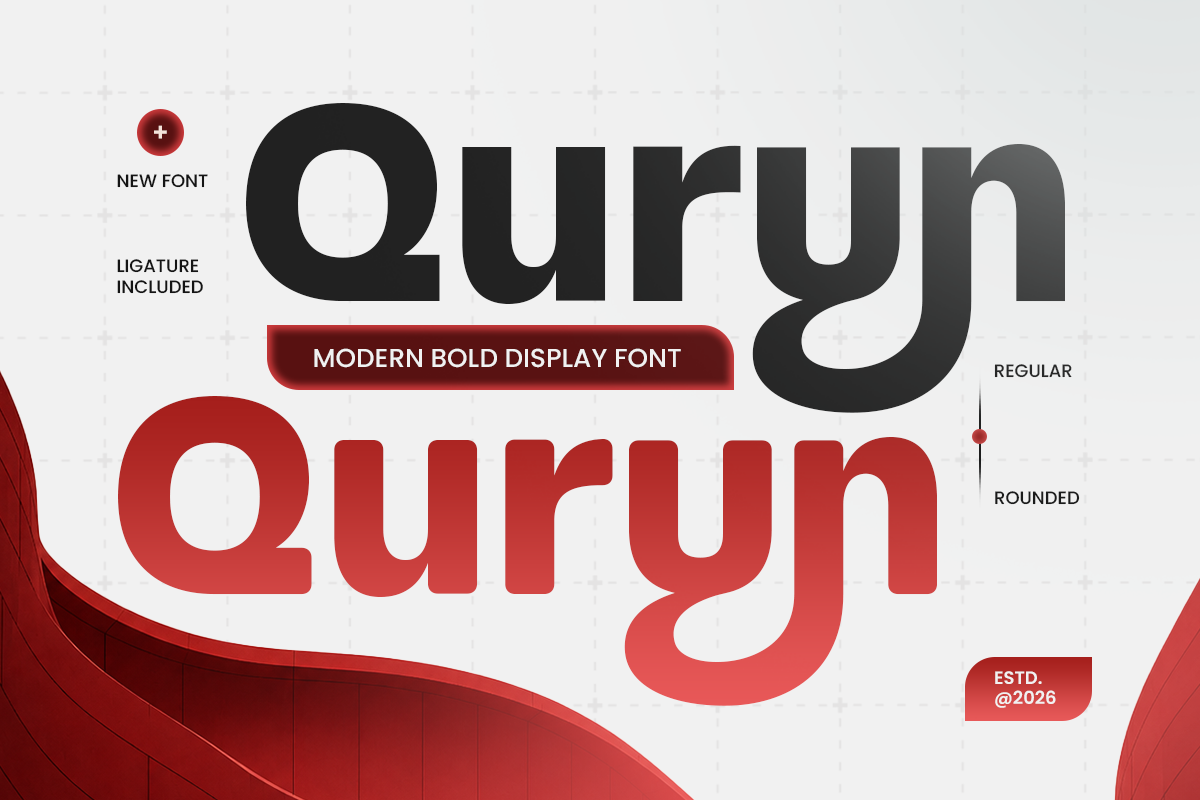
Quryn
-Modern Bold Display Font
Quryn – Modern Bold Display Font
Quryn is a modern bold display font designed with strong visual impact and a confident personality. Featuring bold letterforms and a contemporary display style, Quryn brings a powerful presence to designs that need attention, clarity, and memorable typography.
Perfect for modern branding, logo design, posters, headlines, packaging, advertising, social media graphics, and creative campaigns, Quryn helps create bold visual statements. Its distinctive shapes and strong structure make it suitable for brands looking to express energy, confidence, and a modern edge.
As a bold display font, Quryn works beautifully across various industries including fashion, lifestyle, sports, entertainment, and digital branding. From eye-catching titles to impactful brand identities, Quryn provides designers with a versatile typeface for both print and digital projects.
Quryn – Modern Bold Display Features
• Bold display letterforms with a strong modern personality
• Powerful typography style for impactful visual communication
• Ideal for logos, branding, posters, and headlines
• Perfect for packaging, advertising, and social media designs
• Includes uppercase, lowercase, numerals, and punctuation
• OpenType features for creative typographic flexibility
• Great for digital interfaces and professional print projects
• Versatile design for modern creative industries
Multilingual Support
Afrikaans, Albanian, Asu, Basque, Bemba, Bena, Breton, Chiga, Cornish, Dutch, English, Estonian, Filipino, Finnish, Friulian, Galician, German, Gusii, Indonesian, Irish, Italian, Kabuverdianu, Kalenjin, Kinyarwanda, Luo, Luxembourgish, Luyia, Machame, Makhuwa-Meetto, Makonde, Malagasy, Manx, Morisyen, North Ndebele, Nyankole, Oromo, Portuguese, Quechua, Romansh, Rombo, Rundi, Rwa, Samburu, Sango, Sangu, Scottish Gaelic, Sena, Shambala, Shona, Soga, Somali, Spanish, Swahili, Swedish, Swiss, and more.
Features
• Alternate Characters
• Ligature Collections
• Multilingual Language
• Number & Punctuation
• Opentype Features
• PUA Encode
• Uppercase & Lowercase
• Display
Styles
• Regular
• Rounded